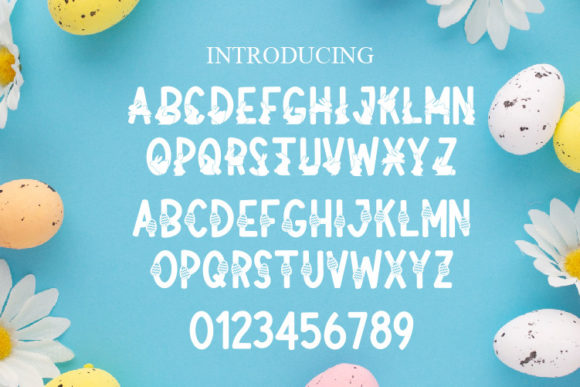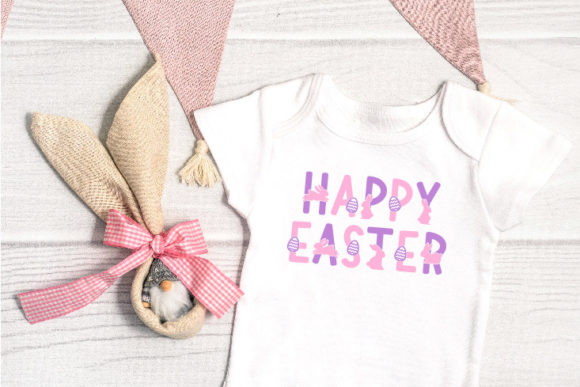
Easter Bunny Font: A Cute and Playful Decorative Font for Crafters
Are you looking for a fun and festive font to add to your Easter crafts? Look no further than the Easter Bunny Font! This adorable decorative font is optimized for crafters using popular cutting machines like Cricut Design Space, Silhouette Studio, ScanNCut, and more.
What makes Easter Bunny Font special?
The Easter Bunny Font is a unique and playful font that features cute bunny and Easter egg details, making it perfect for creating posters, greeting cards, Easter crafts, and more. The font is designed to be versatile and can be used for a variety of projects, from DIY decorations to personalized gifts.
Optimized for Crafters
Easter Bunny Font Features
The Easter Bunny Font comes with a range of features that make it perfect for crafters, including:
- Cute bunny and Easter egg details
- Playful and decorative design
Project Ideas using Easter Bunny Font
The Easter Bunny Font is perfect for a variety of Easter projects, including:
- Easter posters and signs
- Personalized Easter greeting cards
- Easter crafts, such as decorations and gift tags
- DIY Easter decorations, such as garlands and banners
- Custom Easter gifts, such as mugs and t-shirts
Tips and Tricks for Using Easter Bunny Font
Here are some tips and tricks for getting the most out of the Easter Bunny Font:
- Experiment with different font sizes and styles to create unique effects
- Combine the Easter Bunny Font with other fonts and graphics to create custom designs
- Use the font to create personalized gifts and decorations for Easter